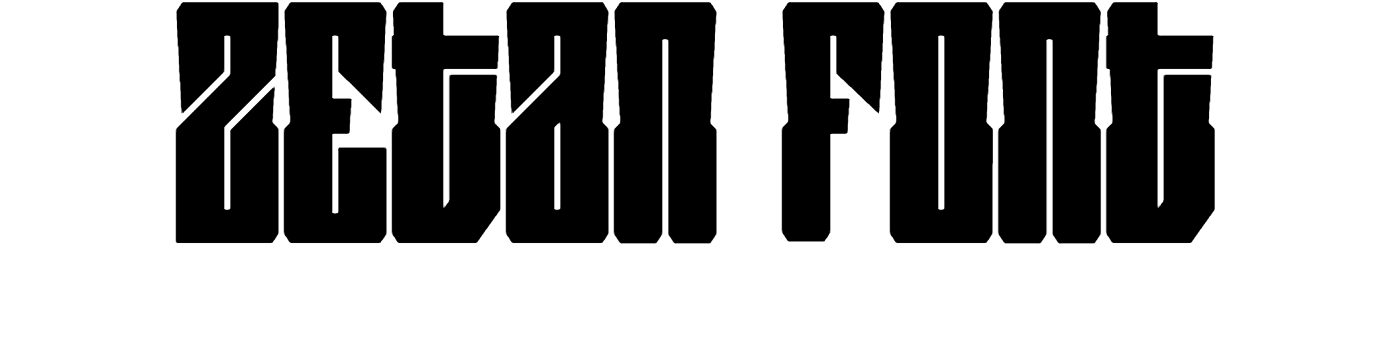
Zetan
Zetan is a fancy font created by Ari juanda (2024). It's a decorative display font with plenty of personality, made to grab attention. It's a free download, and you can try it with your own text in the preview above first.
What You Can Type With Zetan
You get every letter from A to Z in both cases and all the numbers from 0 to 9, which means Zetan can handle full sentences, dates and prices. Everyday marks like &, !, ? and @ are there too. Thanks to its accented letters, it also works for Spanish, French, German, Portuguese and Italian, not just English.
Where Zetan Works Best
Think of Zetan for posters, logos and eye-catching headlines. Use it for one standout word or headline and let simpler fonts handle the rest.
Who designed Zetan font?
Does Zetan support accented letters?
Yes. Zetan includes the accented letters needed for Spanish, French, German, Portuguese and Italian, so it works for more than just English.